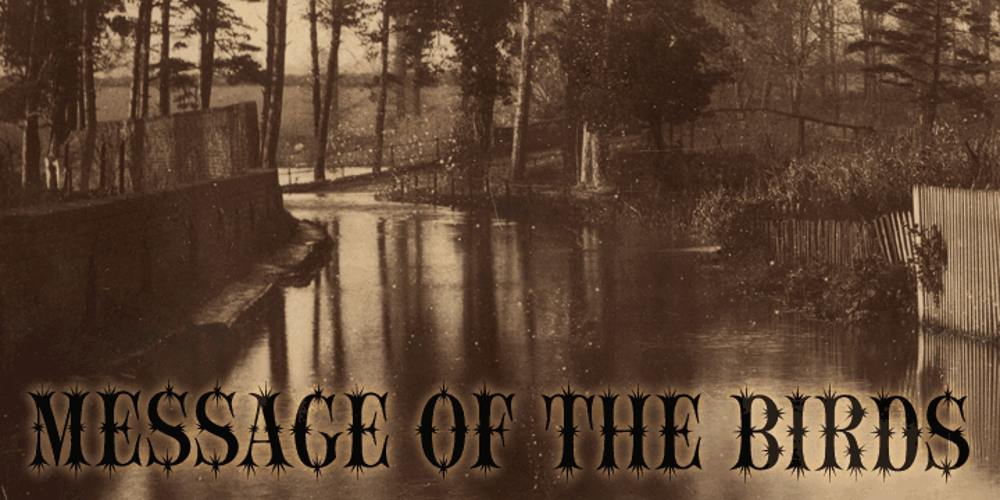
Message Of The Birds Font Family was designed by Tim Barnes and published by chicken. Message Of The Birds contains 1 styles and family package options. A handful of these spiky, sprightly letters made up the twittering title page of ‘Message Of The Birds’, a song by one Flora Warner, found in stacks of crumbling scores on an old upright piano in the basement of a favorite London bookstore.